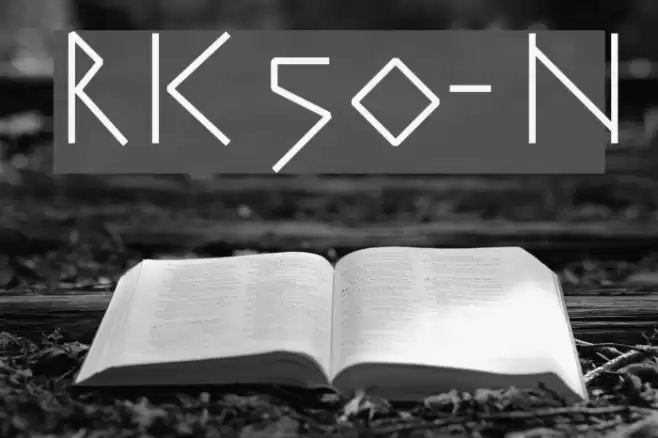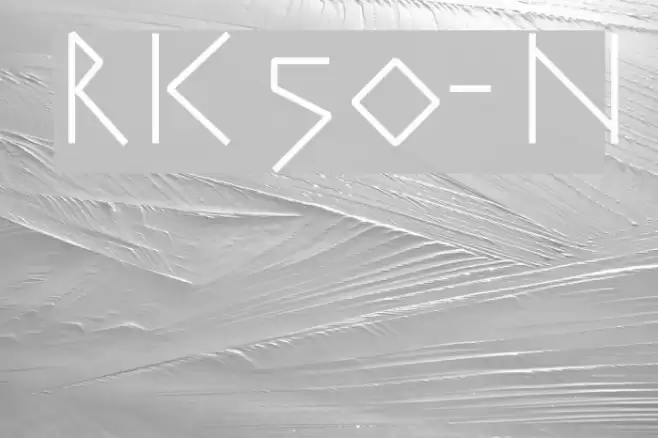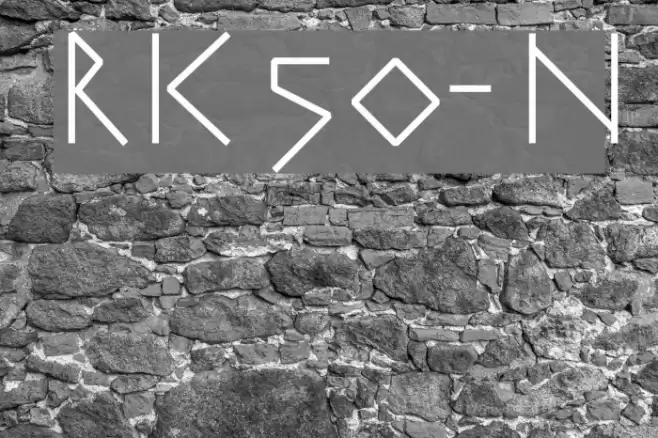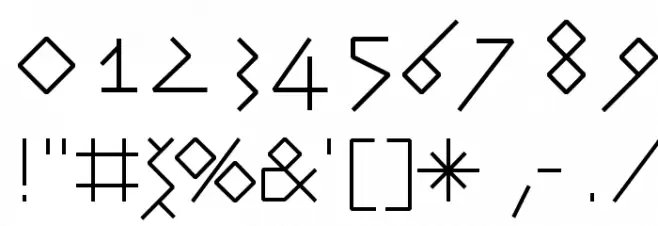
RuniK50-Normal Font
RuniK50-Normal Description
This font features a unique, geometric design reminiscent of ancient runic symbols. Each character is crafted with sharp angles and straight lines, creating a distinct and modern appearance. The uppercase and lowercase letters maintain a consistent style, with a focus on symmetry and minimalism. Numbers and special characters are designed to complement the alphabet, ensuring a cohesive look across all elements. The font's clean and angular aesthetic makes it suitable for projects that require a futuristic or mystical touch.
A geometric, runic-inspired font with sharp angles and a modern aesthetic from Uncategorized fonts.